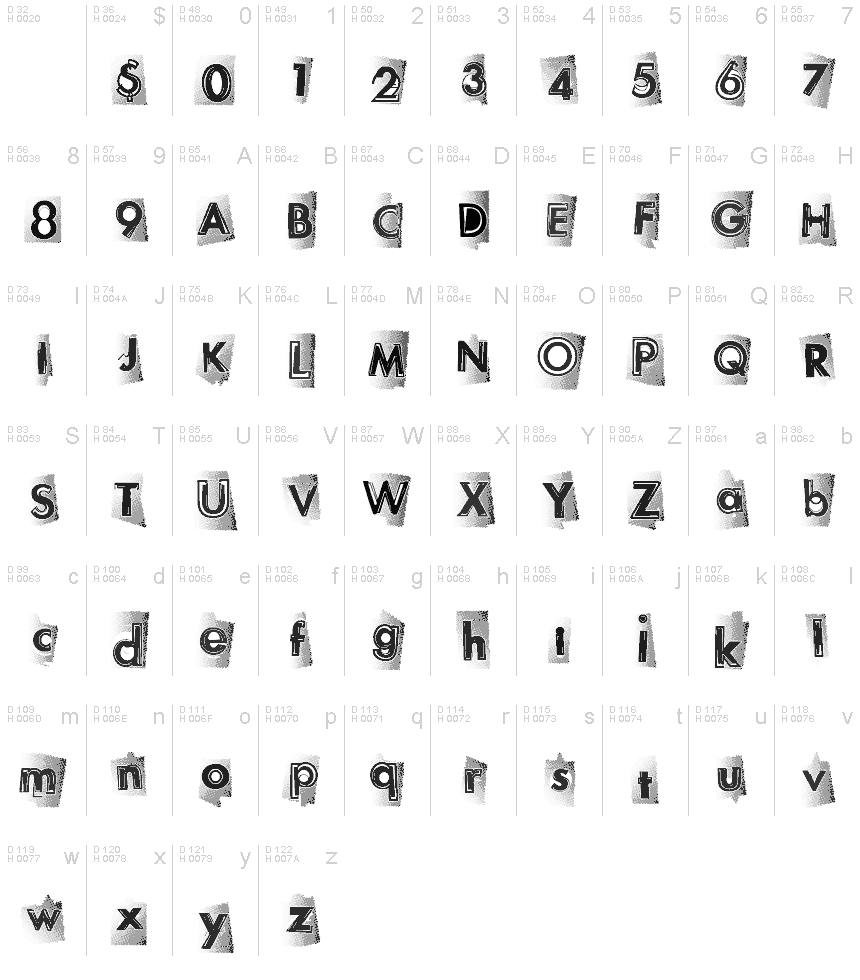
NewHighs
NewHighs is a distinctively distorted display font designed by Xerographer Fonts' Max Infeld. The typeface's boldly contoured letterforms and jagged edges command attention, exuding a sense of energy and tension. Its unconventional aesthetic lends itself well to headlines, titles, and other prominent design elements, adding visual impact and a touch of the avant-garde.
NewHighs' versatility extends across various mediums, from print to digital, making it a compelling choice for designers seeking to create eye-catching typographic compositions that push the boundaries of traditional typography.